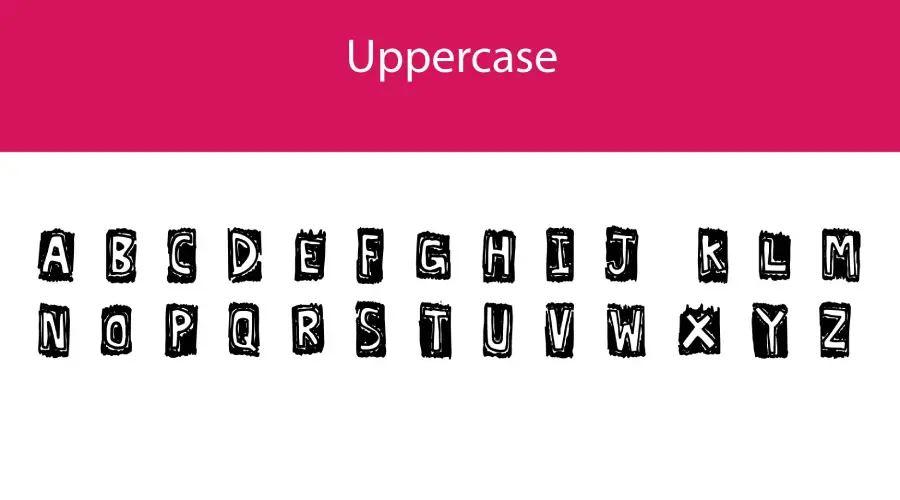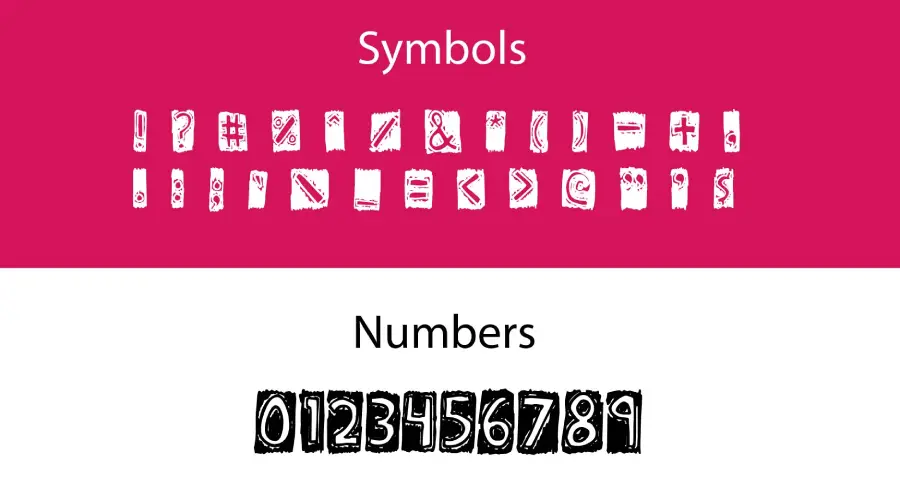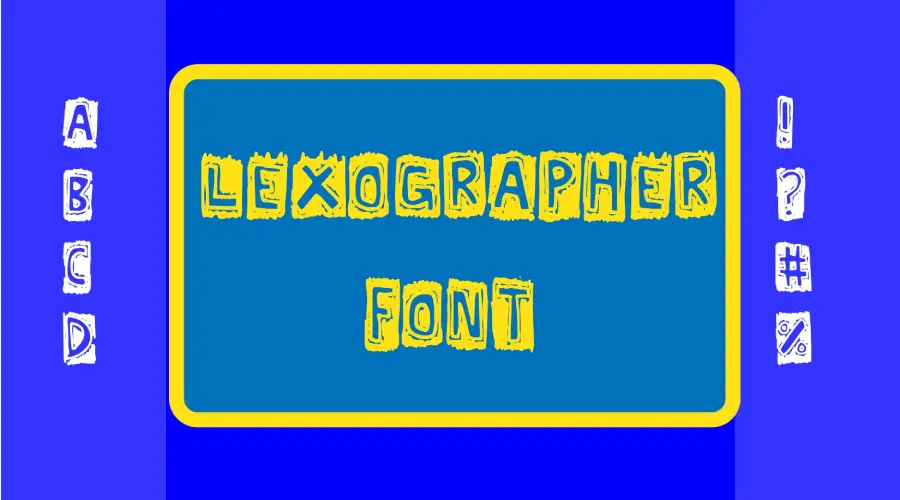
Lexographer font is a fancy, distorted typeface. It is designed by Divide by Zero. It is a distorted and scribbled font that looks like it was written with a marker. It has handwritten graffiti and ransom note styles. The font is available in TTF (TrueType Font) format and includes 114 characters, offering various glyphs for different purposes.
Whether you’re creating eye-catching posters, attention-grabbing headlines, or unique logos, the Lexographer font will give your project an edgy and unconventional look. It is a free font for personal and commercial use.
Lexographer is a free and funky font that mimics marker handwriting in a distorted and scribbled style. It has various characters and glyphs for different purposes and platforms. It is ideal for creating edgy and unconventional designs, such as posters, headlines, and logos. You can use our Lexographer Font generator to customize and preview your text with this font.
Lexographer’s creator note and design limits
Lexographer is an intentionally rough, marker-like display face credited to Tom Murphy 7 under Divide By Zero. Its uneven outlines create a DIY, zine, underground-poster, game, or distressed editorial mood. The texture is part of the design, so smoothing or auto-tracing it can remove the character that makes the font useful.
The character set is compact, so test every symbol and accented letter required by the project. Use Lexographer for short headings or single words; a clean serif or sans serif will make body copy easier to read. Check the filled-space behavior documented by the creator if the vertical bar character is important to the design.